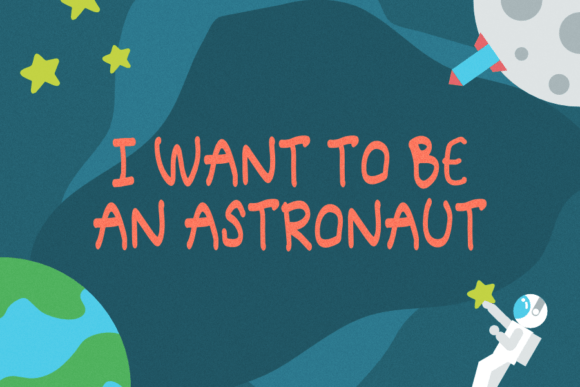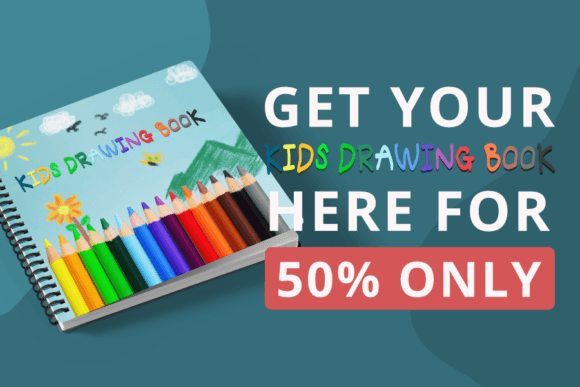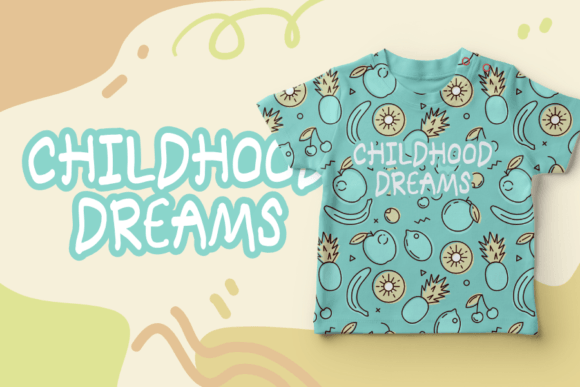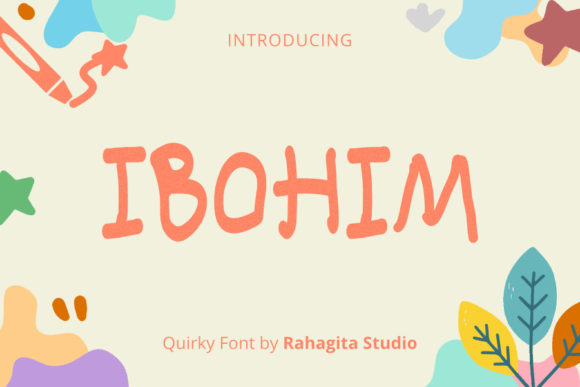
Introduction to Ibohim Font
Step into a world of whimsy and creativity with Ibohim, a one-of-a-kind children’s font.
Its irregular, cute, and simple design adds a delightful touch of fun to any project Embodying the spirit of imaginative freedom for children, Ibohim is more than just a font; it’s an invitation to explore boundless creativity.
Key Features of Ibohim Font
Why Choose Ibohim Font?